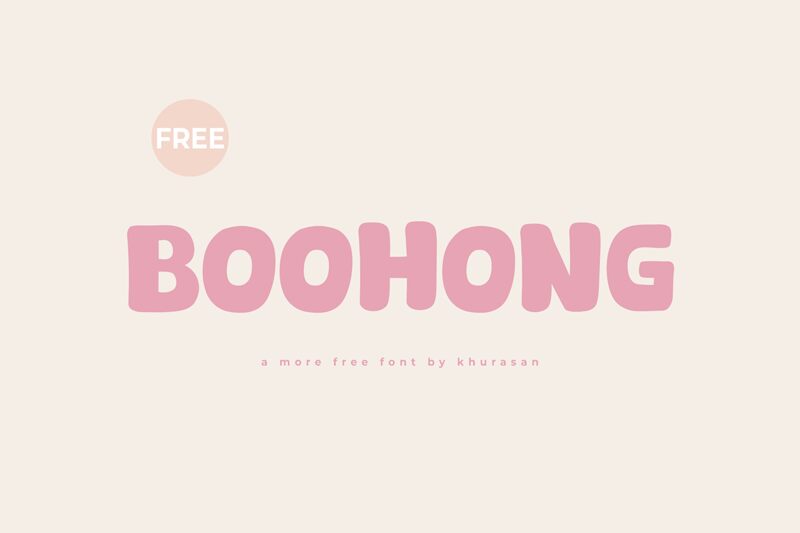
Boohong
Boohong leaps off the page with a playful energy, crafted by the imaginative Khurasan. Its cartoon style exudes a whimsical charm, wrapping each letter in a cozy boldness that seems to embrace both fun and friendliness. The font's robust strokes suggest confidence and presence, making it perfect for when a touch of cheer is needed without compromising on impact.
Ideally suited for children's books, party invitations, or any project looking to inject a lighthearted vibe, Boohong is versatile enough to bring life to logos and headlines alike. Its unmistakable appeal ensures that messages are not only seen but felt, inviting audiences into a world where every word smiles back at them.